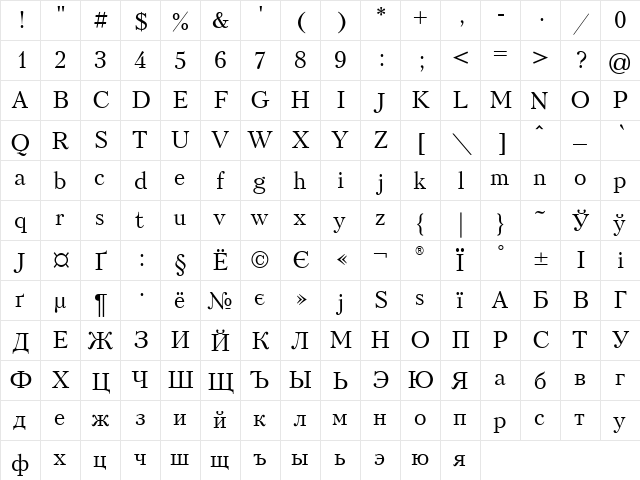
UkrainianPeterburg Regular Font Preview
UkrainianPeterburg Regular
UkrainianPeterburg Regular Font Details
Design Context for UkrainianPeterburg Typeface
UkrainianPeterburg takes a measured approach to typography — its balanced proportions and neutral character make it a reliable workhorse for both digital and print work.